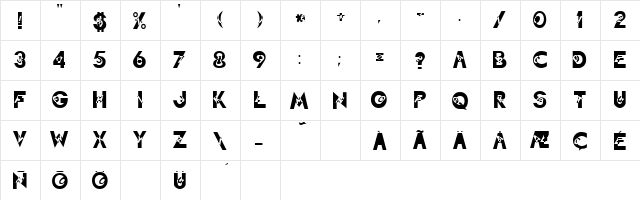
Extravaganza Regular
Design Context for Extravaganza Typeface
Extravaganza is a composed and adaptable typeface that performs quietly and consistently across a wide range of design contexts.